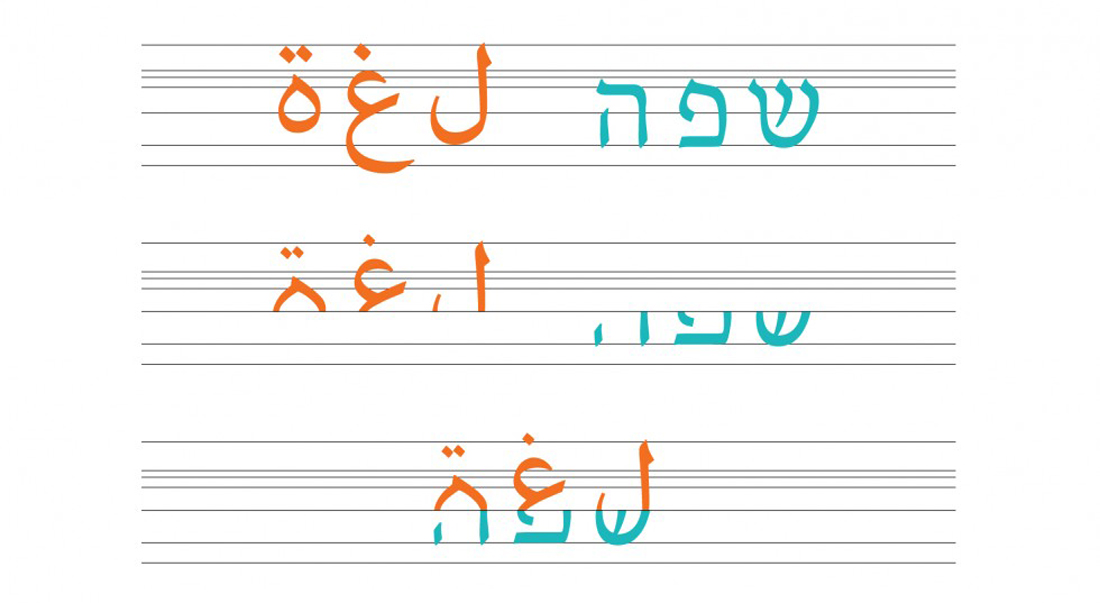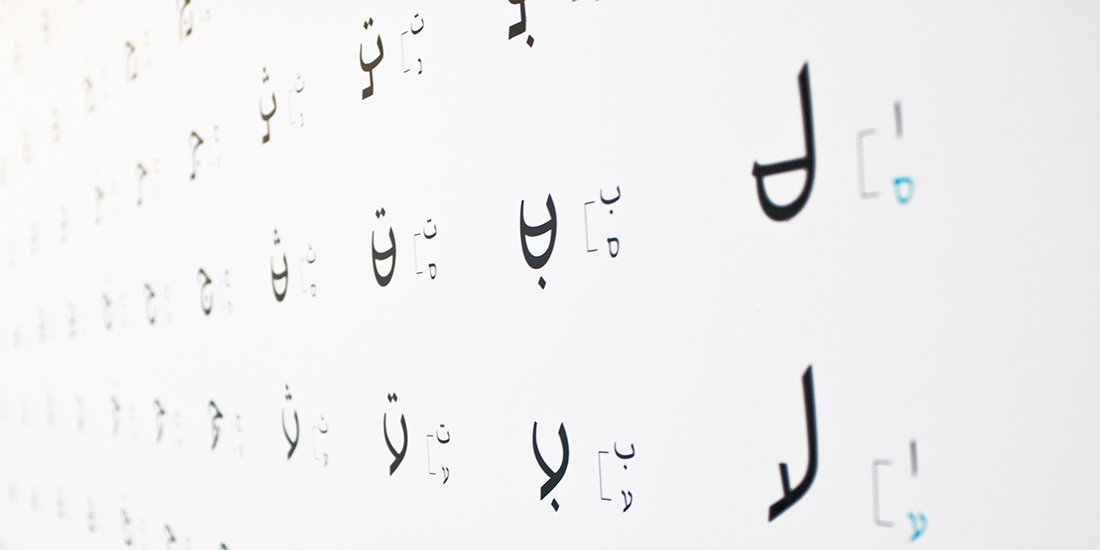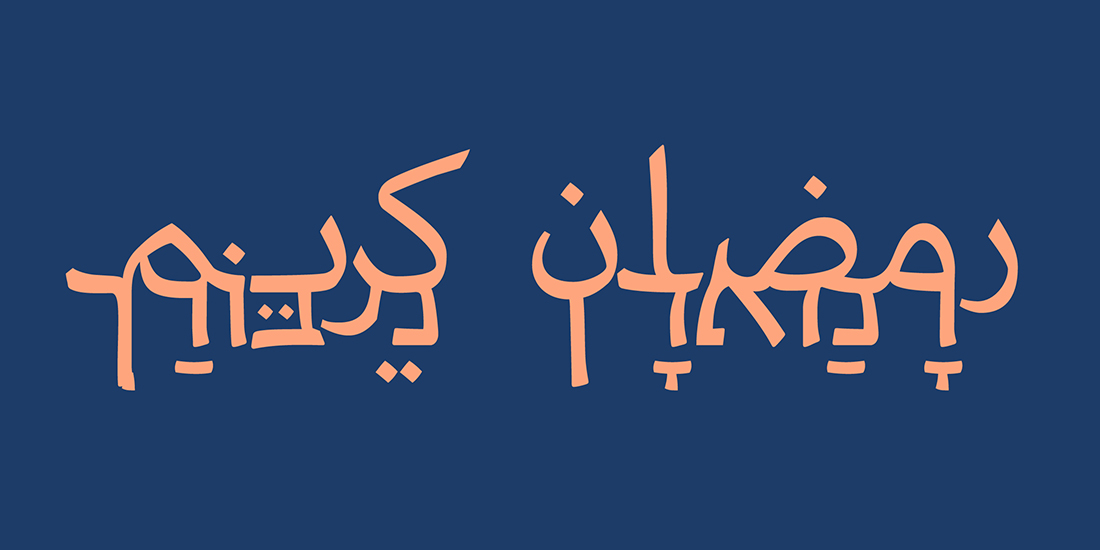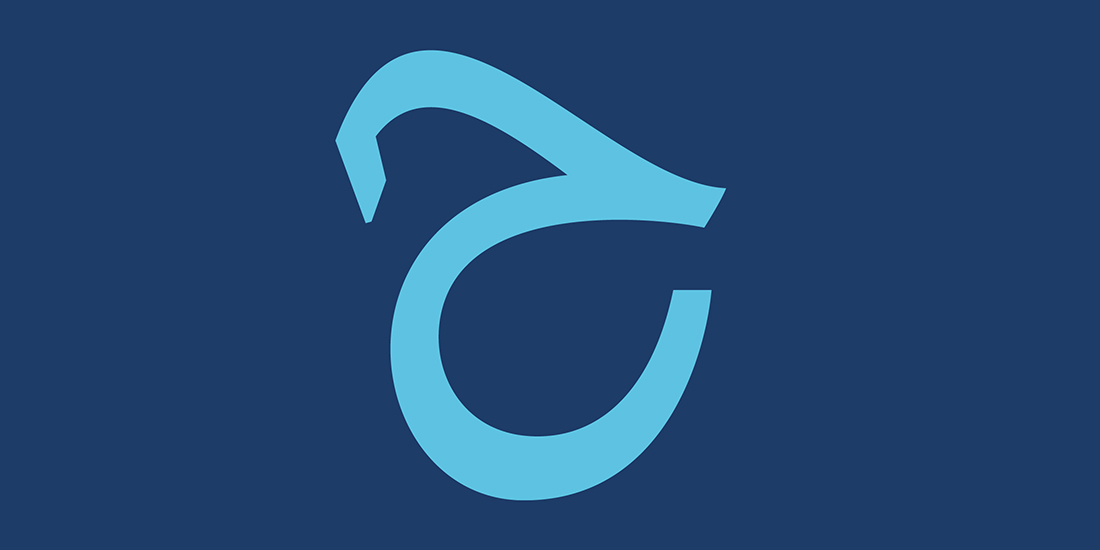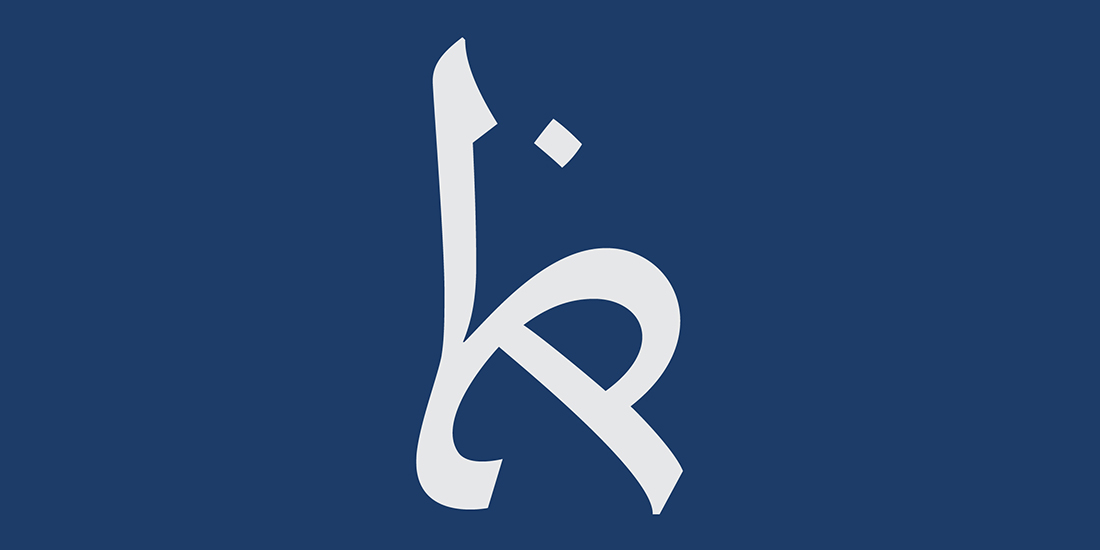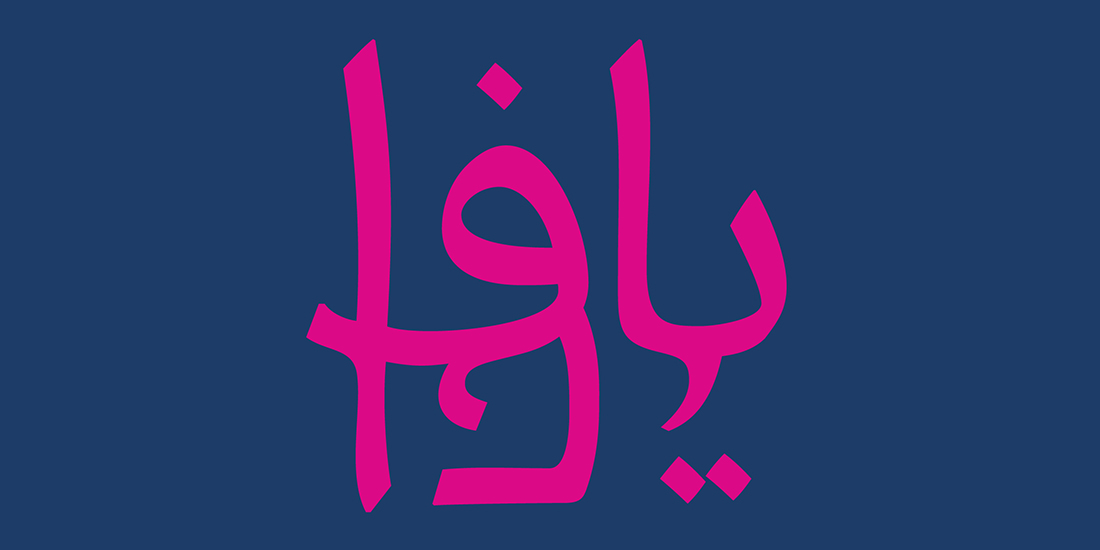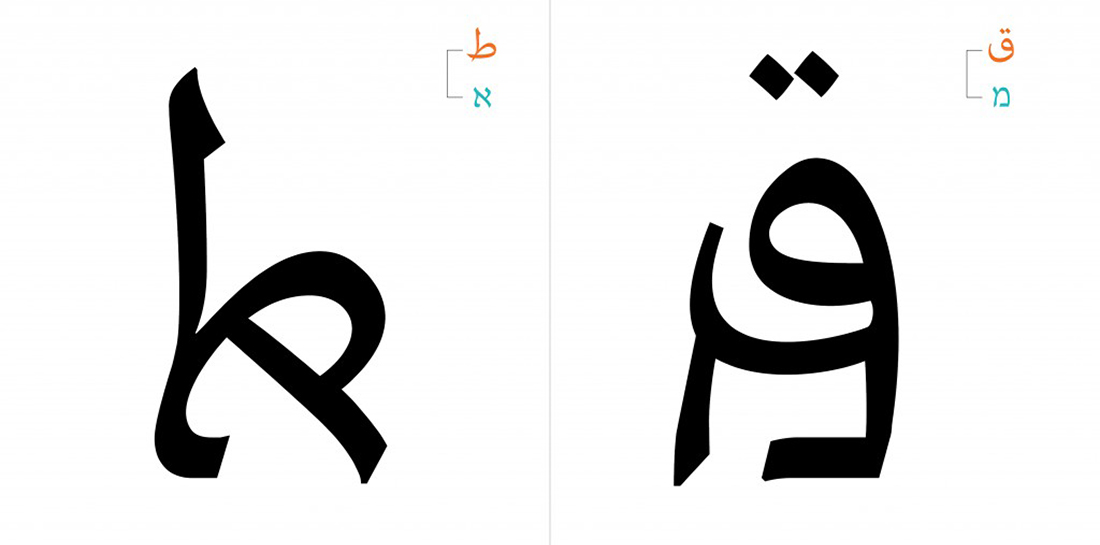
Name: Aravrit
Designer: Liron Lavi Turkenich
Foundry: Liron Lavi Turkenich
Back Story: Israel’s public space harbors a multilingual mashup of English, Hebrew and Arabic signage elbowing each another for attention, with little thought for visual harmony. “I grew up in Haifa, a city that is well known for a use of multiple scripts, but I never studied Arabic,” Turkenich says. “At some point I realized that while looking at signs I was ignoring the Arabic text as content, and just looking at the forms of the letters. It bothered me, so I wanted to create a typeface that would force people (including me) to give the same respect to both scripts.”
Why’s it called Aravrit? Aravrit is a portmanteau of the Hebrew words aravit, meaning Arabic, and ivrit, meaning Hebrew.
What are its distinguishing characteristics? Aravrit represents a kind of sophisticated typographic parlor trick: in Arabic, only the top halves of the letterforms are needed for readability—sentences are legible even if the bottom half of the characters are completely erased. (True for English, too—try it!) Hebrew is the opposite—a reader requires just the bottom halves of the letterforms for comprehension. Turkenich’s utopian project slices the letterforms horizontally and blends them into singular characters legible to speakers of either language, visually addressing her hope for peaceful co-existence.
Each Aravrit character is composed of the top half of an Arabic letter stacked onto the bottom half of a Hebrew one, allowing readers to choose a preferred language without ignoring the other. One of Turkenich’s goals was to maintain legibility while preserving the characteristics of the two scripts by retaining key identifying features, necessitating some design adjustments in both languages. Because most words in Hebrew and Arabic don’t share the same sounds and letters (for example the word “language” is safa in Hebrew and lura in Arabic), the designer created a glyph for every possible letter pair.
What should I use it for? Aravrit is designed to fit a wide range of purposes: any use of Hebrew, Arabic or both, for display in headlines, signage, and specific words.
What other typefaces do you like to pair it with? “Since Aravrit is more of a writing system it can join with any style of typeface,” says Turkenich. “It can be more traditional or informal, more flowing or structured.” In other words, it plays nice with everyone. Goal achieved!